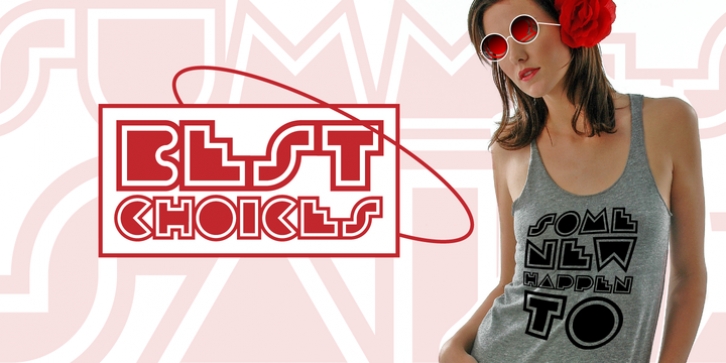
DeCoro is a decorative display font inspired by the Art Deco style that had a dominant influence between '20 and '30, by this way, DeCoro is a revival of those times between wars, a time of luxury cars and refined decorative arts, crazy dancer contestants of Charleston and Jazz bands, aerial acrobats, sound cinema, animated films and clandestine drinkers.